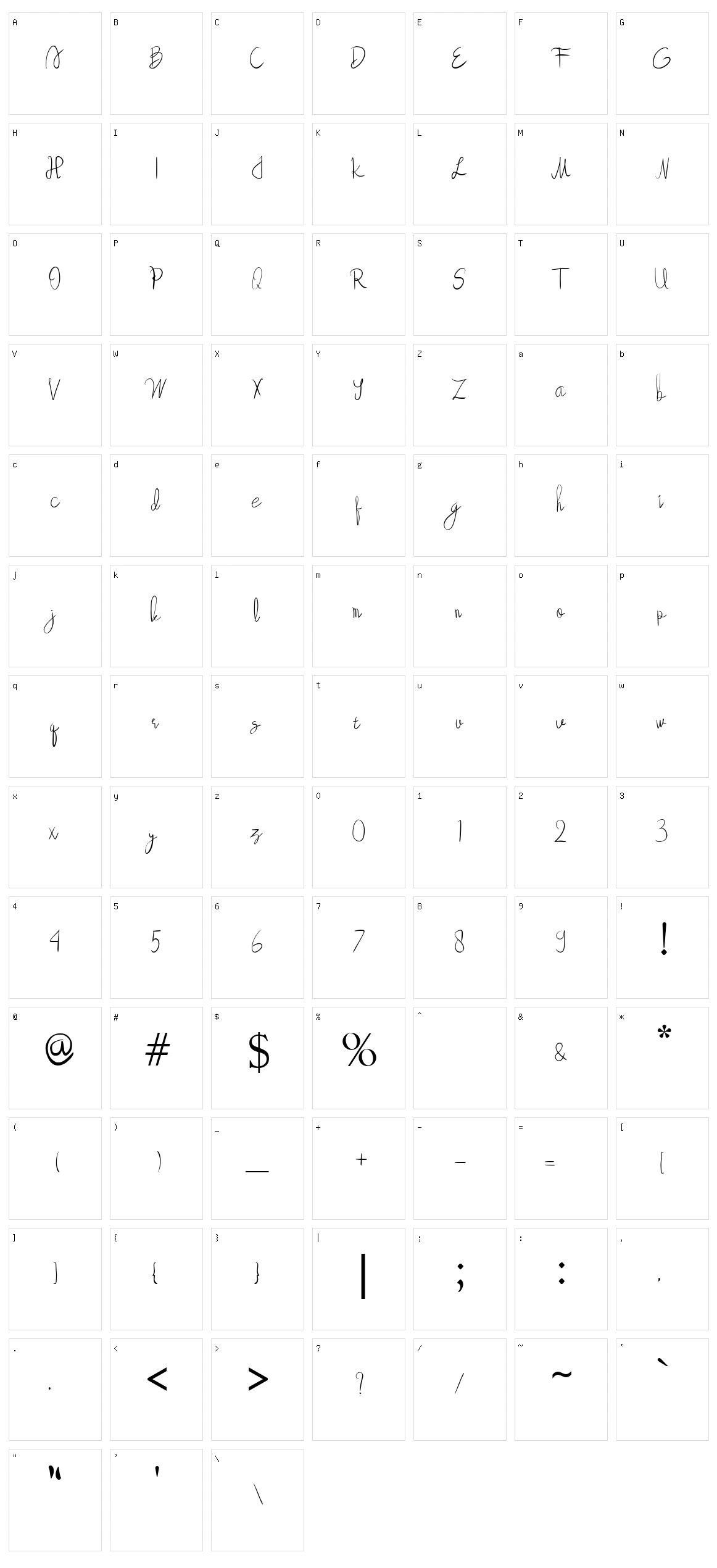
The free font Beauty forest is carefully designed by wonoayu79, showcasing a thoughtful balance of creativity and usability and falls under the Script font style. When you download the ZIP file, it contains only 35.87 KB of font files, making it lightweight and quick to download. Please review the license details below to understand permitted usage and distribution rights. If license information is not available, we recommend using this font for personal projects only or contacting the author directly for commercial usage permissions.